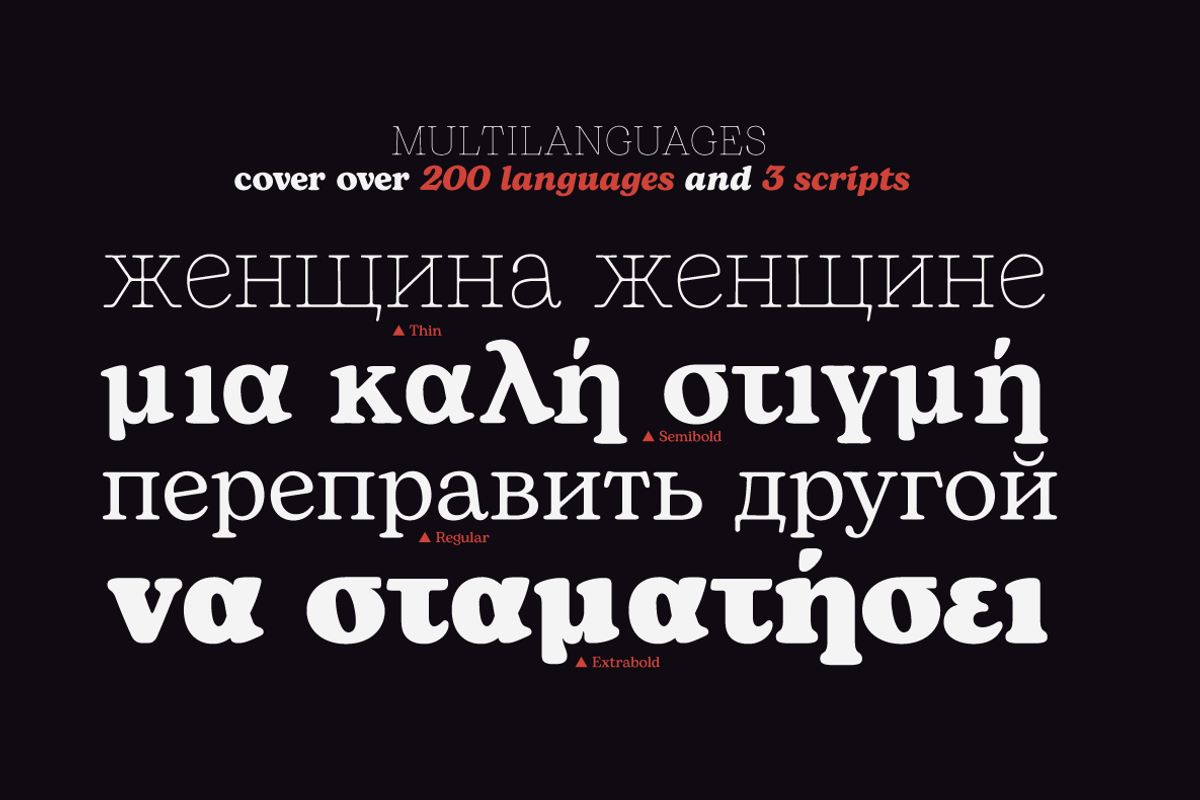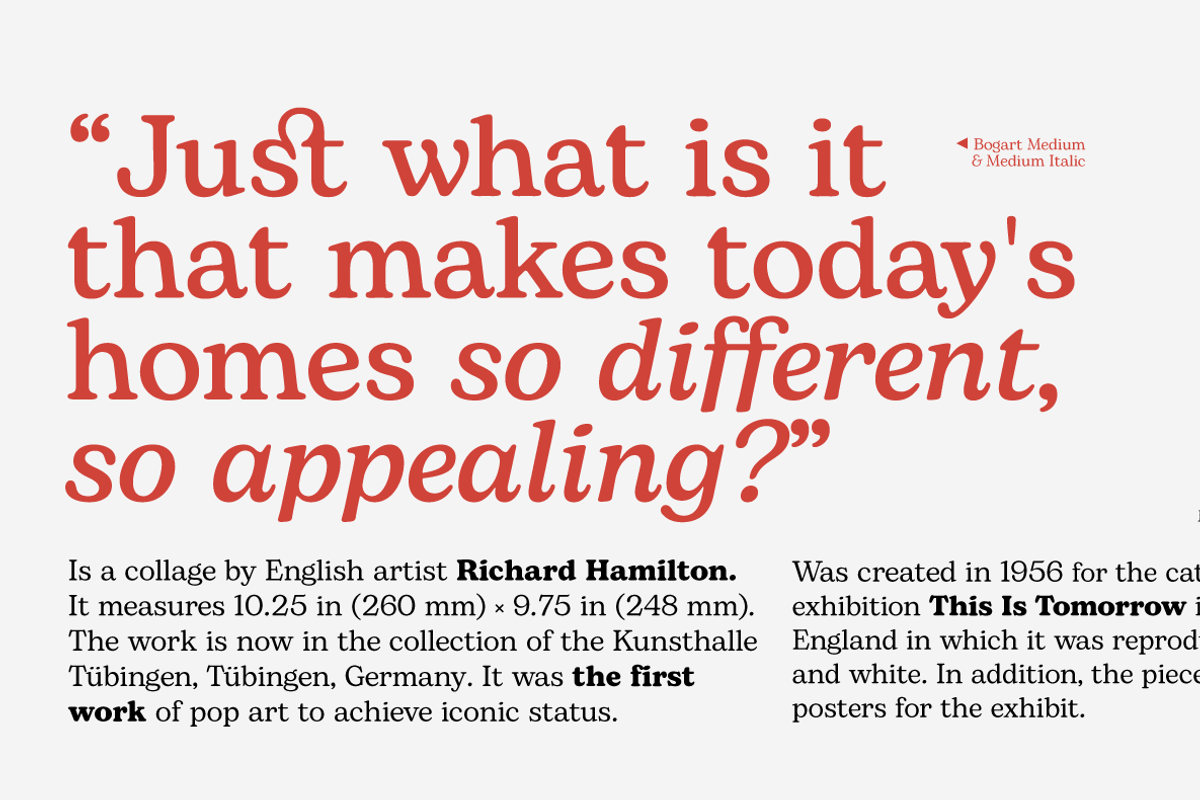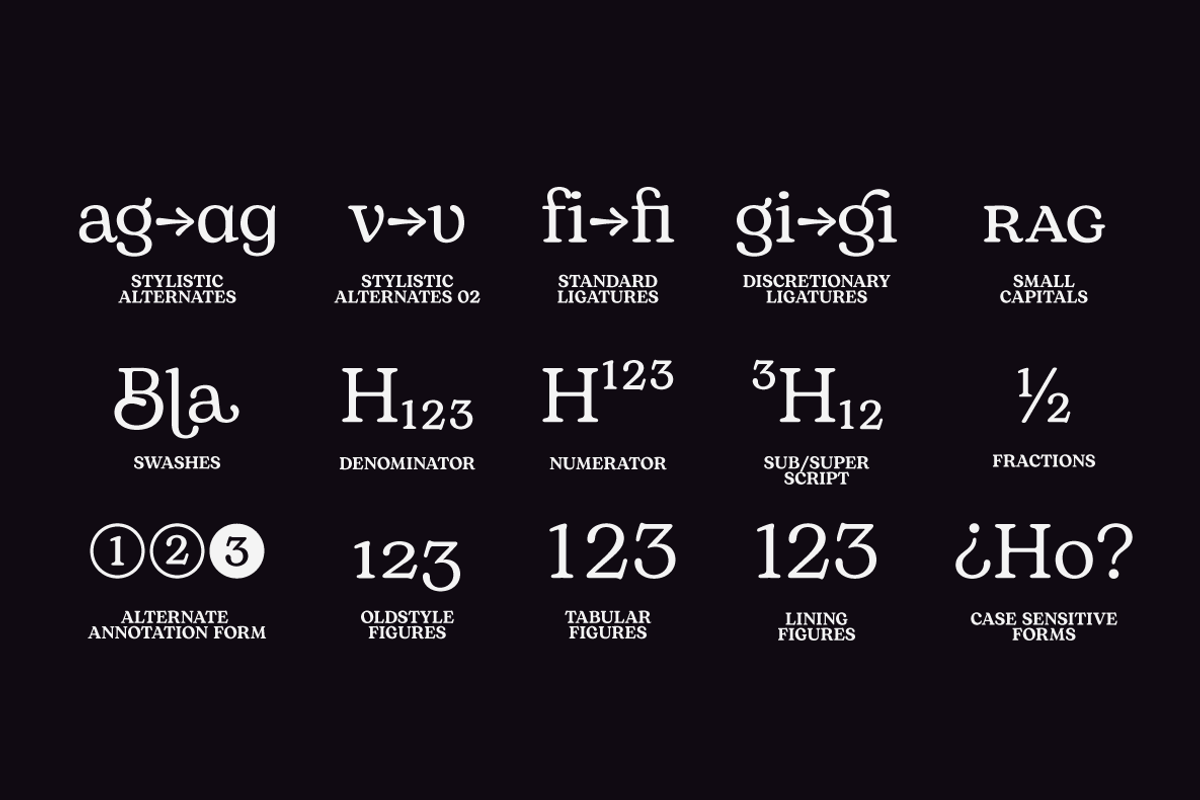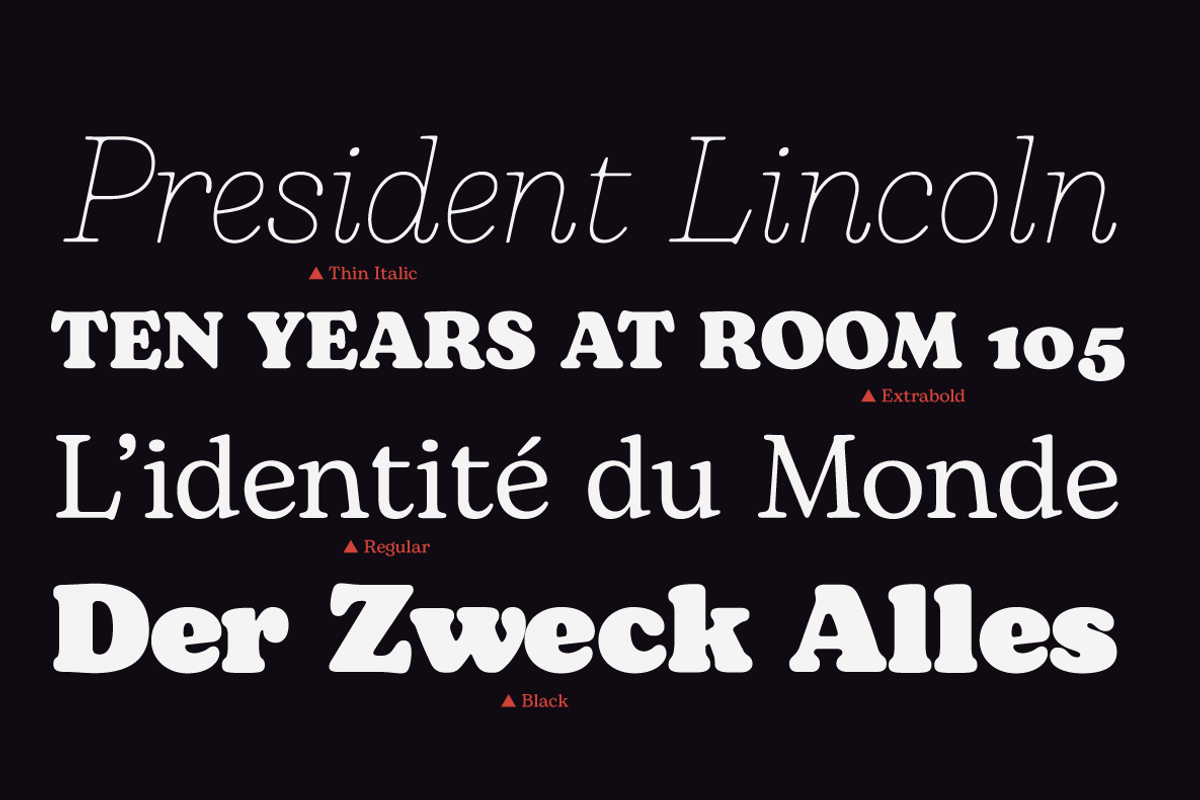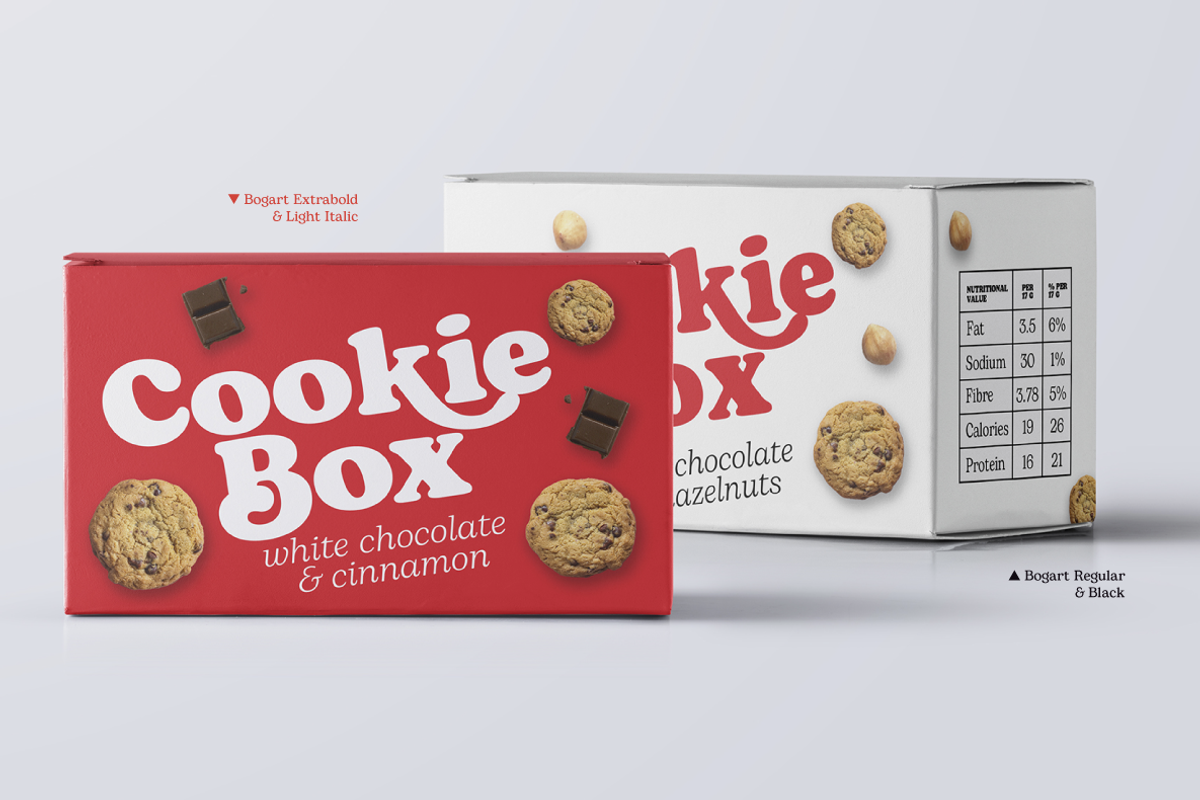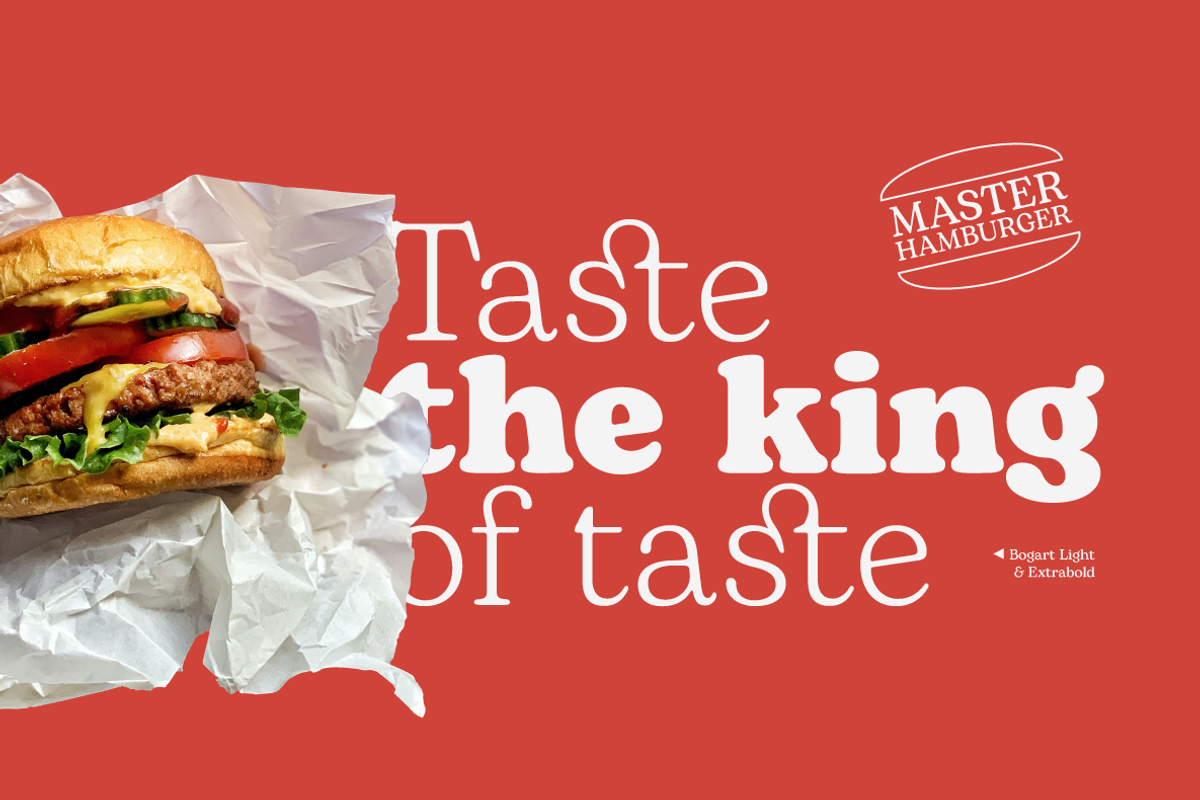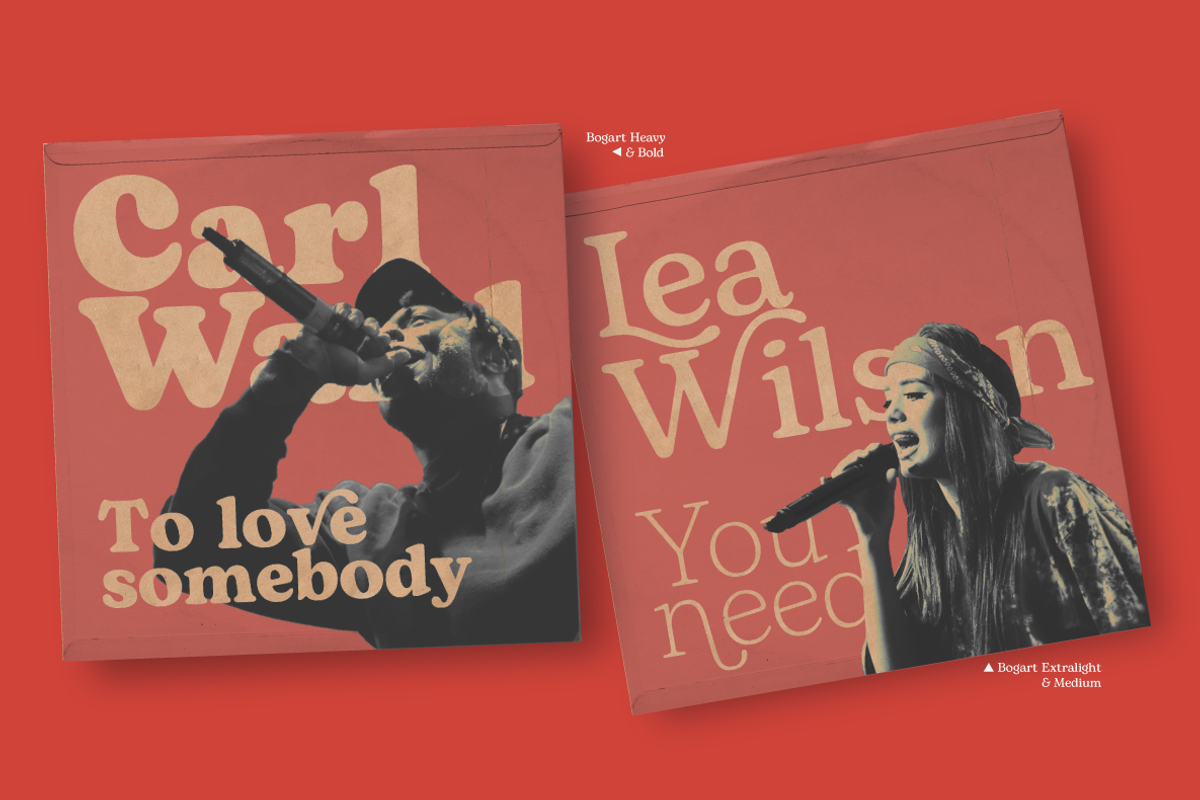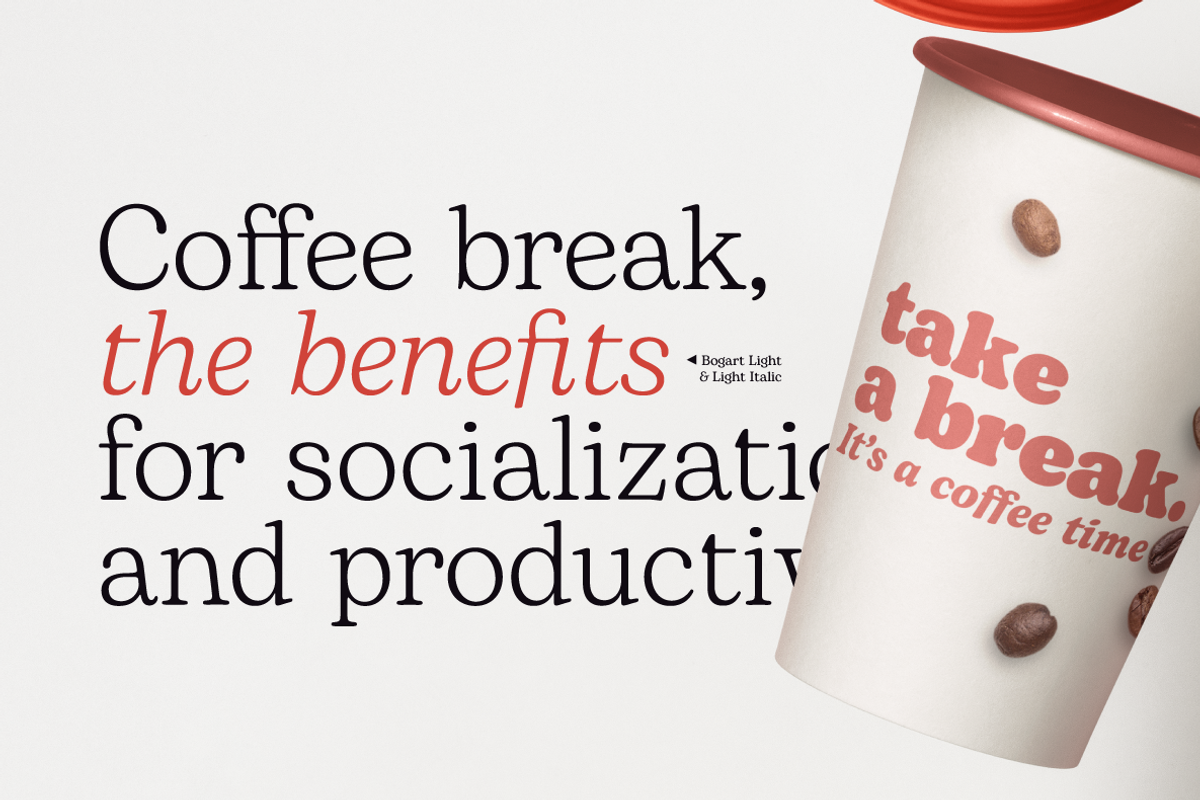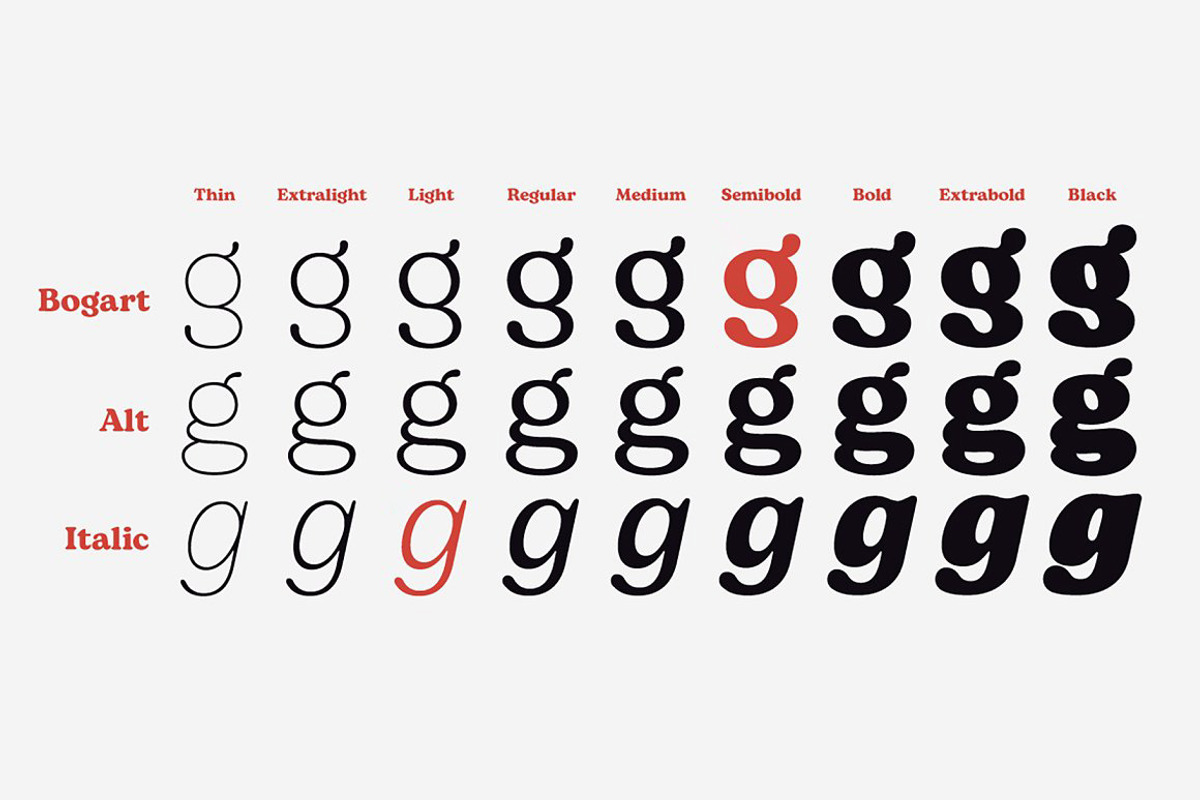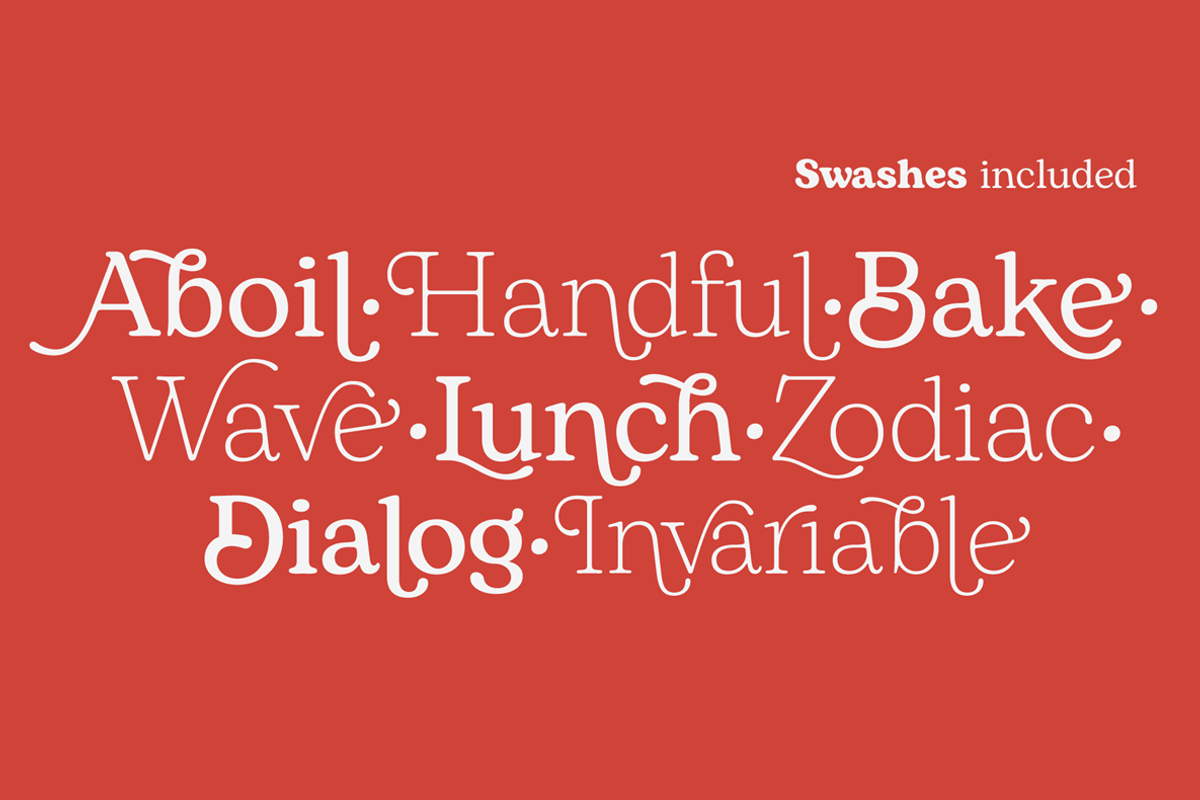
Bogart - 28 fonts
Bogart has been designed in 2020 by Francesco Canovaro as a personal homage to the iconic look of low-contrast old-style fat faces, like Cooper Black (Oswald Bruce Cooper, 1922) and Goudy Heavy Face (Frederic W. Goudy and Sol Hess, 1925-1932). Originating from the modern old style of Bookman, these muddy, goopy shapes found their pop culture iconic status thanks to rub-on transfers and phototypesetting systems in the 1960s and 1970s. Positively bursting with hippie energy and exuberant vitality, they often included an extensive repertoire of swash characters, bridging the space between lettering and typography.
In researching these shapes, Canovaro decided to include also the influence of another idiosyncratic american old style typeface, Windsor, quoting its sloping shapes and quirky solutions, and expanding the weight range of Bogart to include a selection of display light weights where the muddy shapes of the heavy weights distill into elegant teardrop terminals. All the nine weights of Bogart, as well the matching true italics forms, feature an extended charset of over 1600 glyphs, covering 219 languages using latin, cyrillic and greek alphabets, and sporting a complete set of Open type features including alternate forms, discretionary ligatures, small capitals, stylistic sets, positional numbers, case-sensitive, terminal and initial swash forms. To add flexibility for editorial usage, a text-oriented Bogart Alternate set of nine weights was added to the family keeping the design more similar to its modern old style model and allowing for a heavy readable mid-weight range.
Hollywood icon Humphrey Bogart, famously said: "things are never so bad they can't be made worse.". This typeface was named after him, aiming at a way to embody the moody spirit of vintage typography, from film noir aesthetics, to the pop culture reference, from joyous swash titling and logo design to strict, balanced text typesetting. Because "typefaces are never so good that they can't be made better".
• Suggested uses: conceived as a great font for editorial use, perfect for display and packaging usage too, where readability and personality must match design space needs;
• 29 styles: 9 standard weights + 9 alternate weights + 9 italics + 2 variable fonts;
• 1697 glyphs in each weight;
• Useful OpenType features: Access All Alternates, Small Capitals From Capitals, Case-Sensitive Forms, Glyph Composition / Decomposition, Discretionary Ligatures, Denominators, Fractions, Kerning, Standard Ligatures, Lining Figures, Localized Forms, Mark Positioning, Mark to Mark Positioning, Alternate Annotation Forms, Numerators, Oldstyle Figures, Proportional Figures, Stylistic Alternates, Scientific Inferiors, Small Capitals, Stylistic Set 1, Stylistic Set 2, Stylistic Set 3, Stylistic Set 4, Stylistic Set 5, Subscript, Superscript, Swash, Tabular Figures, Slashed Zero;